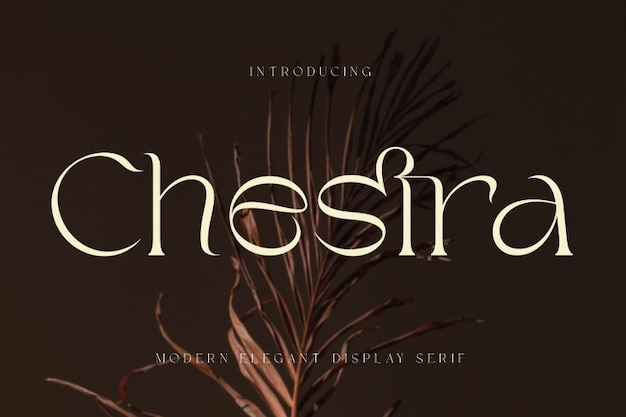
Chestra
Chestra Font
"Chestra" font exudes modern elegance and aesthetic sophistication. With its sleek design and refined curves, each letter embodies timeless grace. Perfect for adding a touch of sophistication to any project, "Chestra" elevates your text with its understated beauty, making it ideal for branding, editorial design, and more.